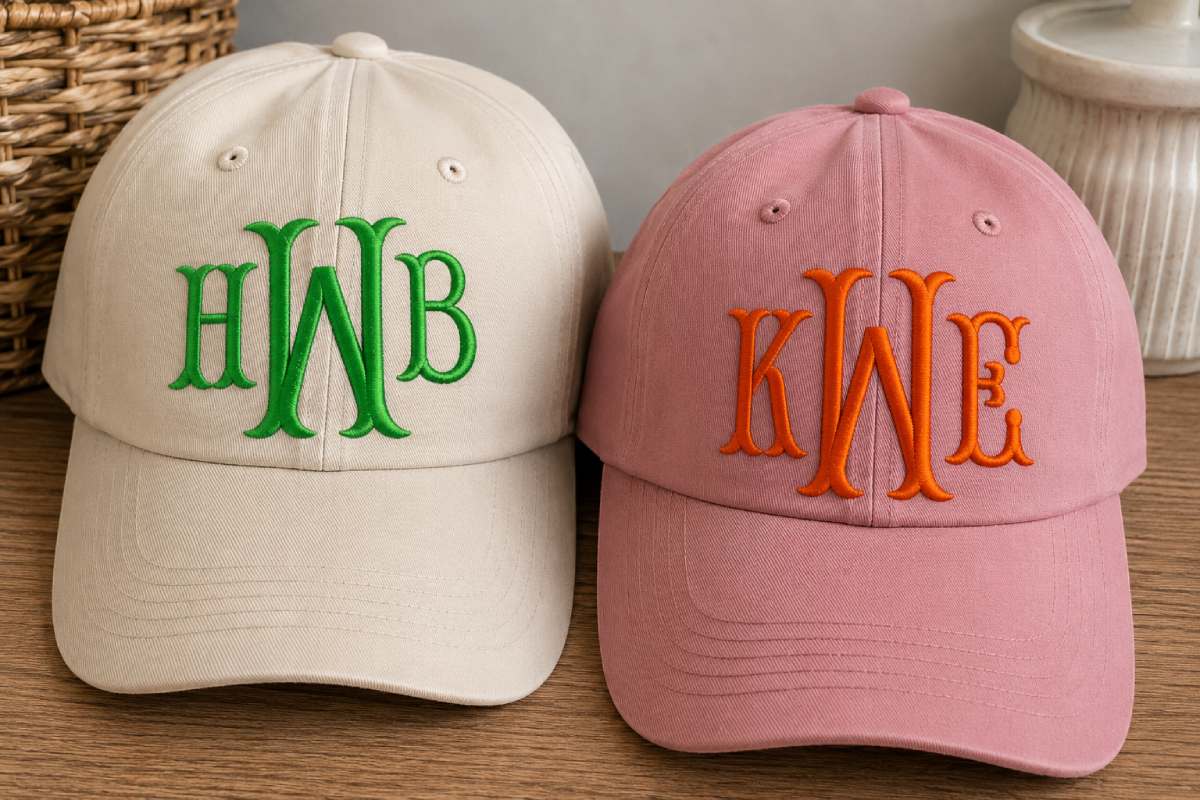
A plain stitched name can look clean, but sometimes clean is not enough. Hats, team gear, bags, and bold monograms need lettering that stands up and catches the eye. That is where 3D puff embroidery fonts earn their place. In this guide, we will walk through Apex font picks that bring raised texture, strong readability, and real project appeal.
What are 3D puff embroidery fonts?
3D puff embroidery fonts are machine embroidery lettering files digitized to create raised, dimensional letters with foam under the stitches. They are commonly used for hats, monograms, team gear, bags, hoodies, and bold logo-style personalization.
The best puff embroidery fonts use thick, readable letter shapes that can hold height without looking messy.
A good 3D puff font is not just a regular alphabet made thicker. It needs structure.
The letters have to close cleanly.
The edges need to survive the raised effect.
Curves cannot collapse into thread clutter.
Small gaps, skinny strokes, and over-decorated details may look charming in a preview, then disappoint once stitched.
That is why 3D puff embroidery fonts look so different from regular embroidery fonts.
They are built for dimension. The raised surface catches light. The thread sits higher. On a cap or sweatshirt, the lettering feels closer to a branded retail piece than a basic name stitch.
Apex 3D puff fonts lean into that practical reality. Some are clean and sporty. Some are made for monograms. Some feel more boutique…
Simple 3D Puff Embroidery Font
Simple 3D Puff Embroidery Font is the “do not overthink it” pick.
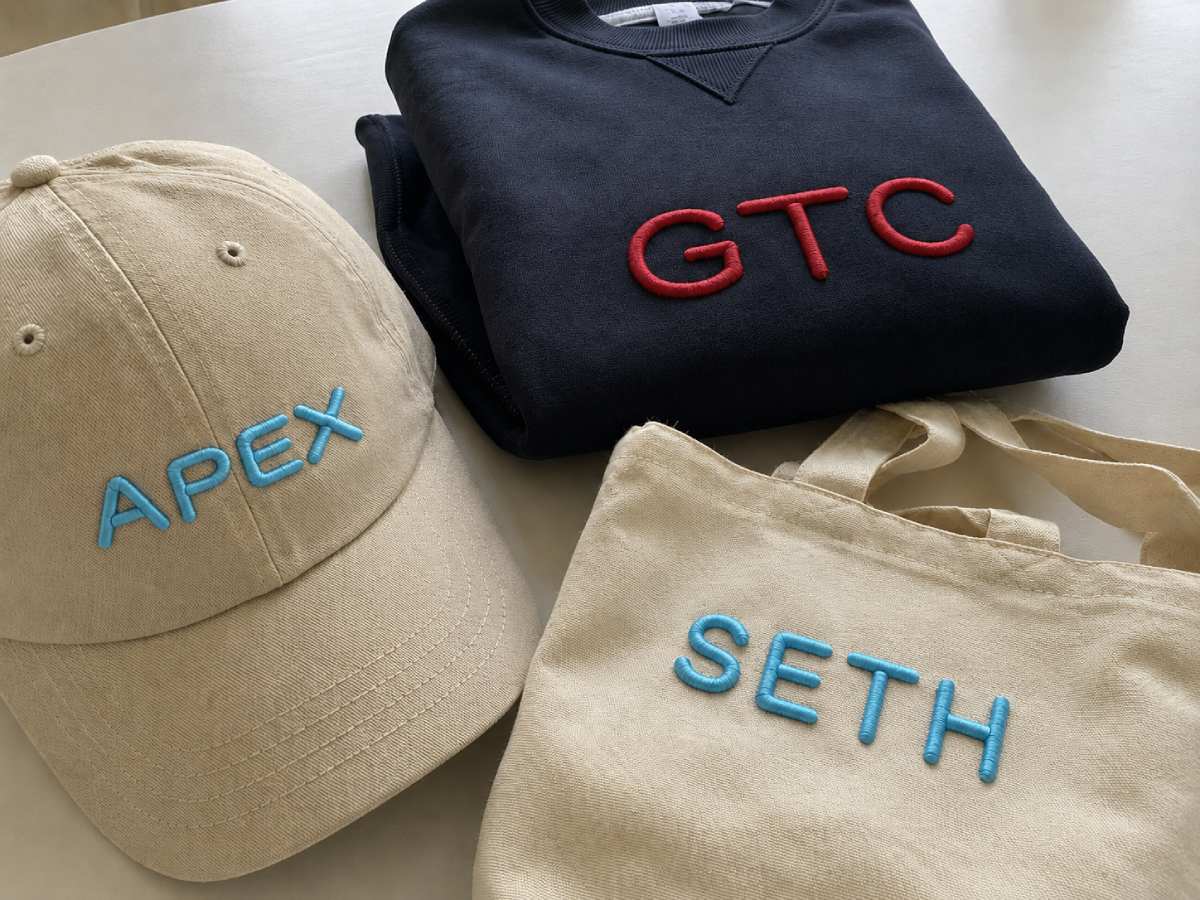
Use it for short names, hat lettering, simple shop names, team words, and casual personalization. The font comes in 1.5", 1.75", and 2" sizes, which makes it useful for projects that need visible puff without going oversized.
Gothic 3D Puff Embroidery Font
Gothic 3D Puff Embroidery Font has more attitude. It is not soft, round, or delicate.
This is the type of 3D puff embroidery font that can work for statement hats, jackets, streetwear-inspired pieces, sports designs, or projects where the lettering needs to look strong rather than sweet.
Varsity 3D Fill and Applique Font Pack
Varsity 3D Fill and Applique Font is the one to reach for when the project needs that school, team, or athletic-shop look.
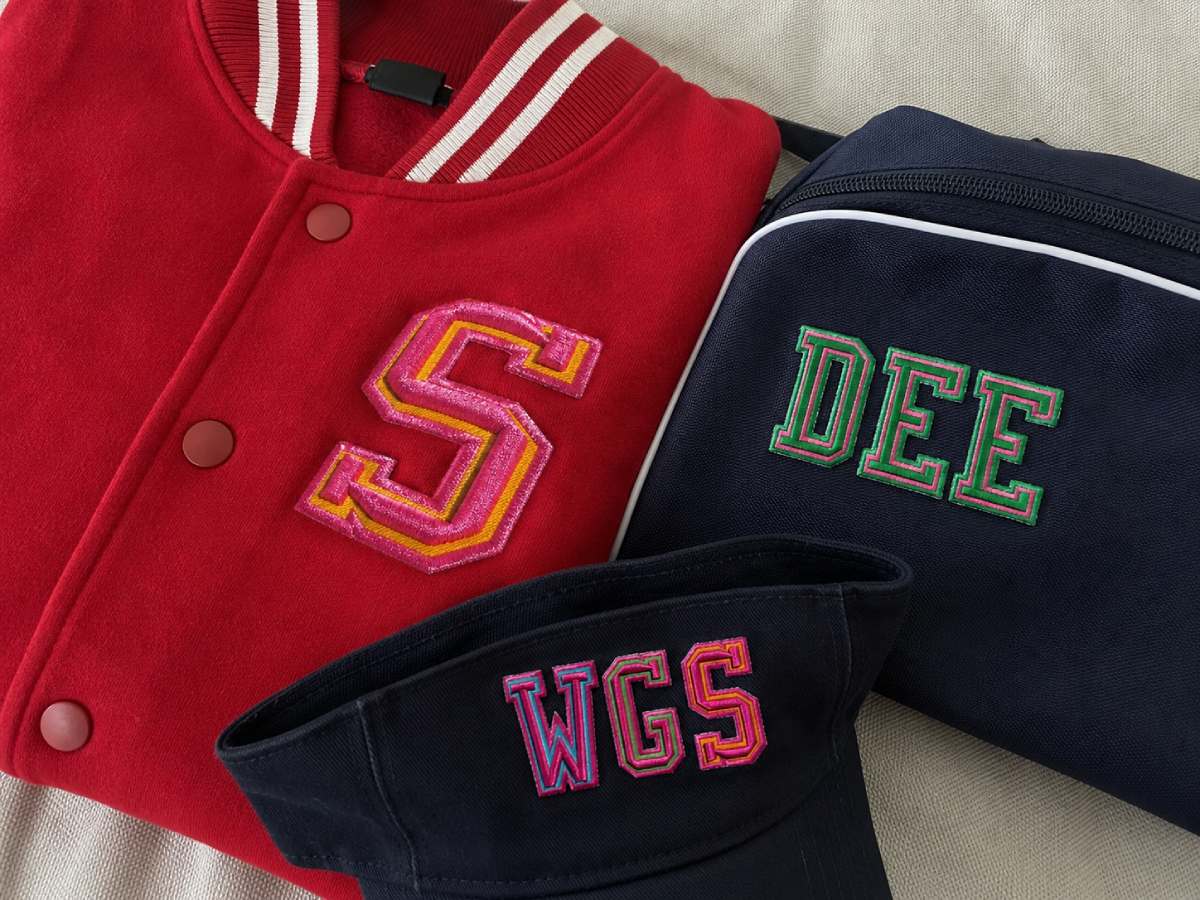
What makes this pack useful is the mix of 3D puff fill and applique structure. It can stitch in two or three colors, so the letters can feel more built-out than a plain single-color puff font.
Puff 3-D Vine Interlocking Embroidery Font
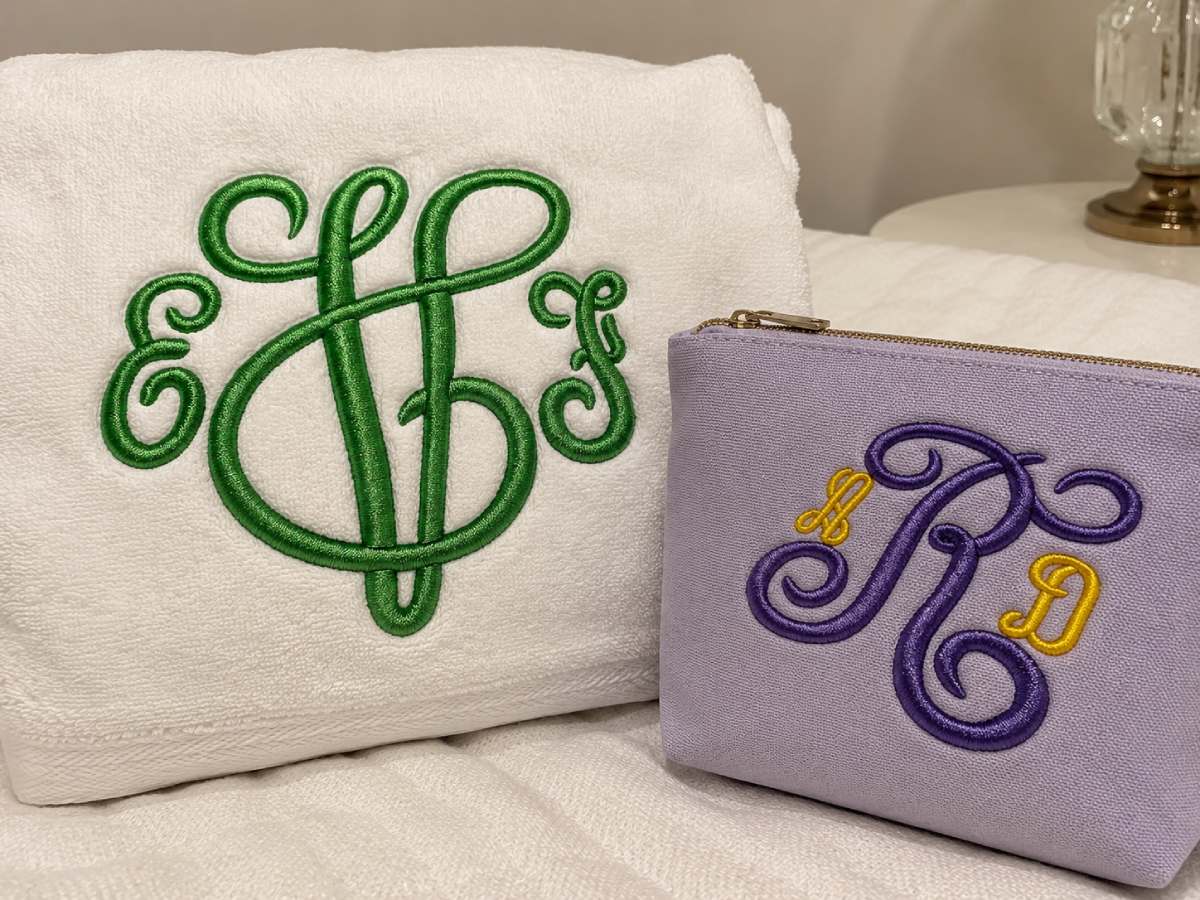
The interlocking vine style gives the letters a monogram feel without making them look too stiff or corporate.
Puff 3-D Vine Interlocking Embroidery Font works best when the embroidery project needs movement: boutique bags, towels, robes, gifts, and personalized items where initials should feel more designed than typed.
Because it comes in multiple sizes, it also gives more flexibility for different placements, from smaller monograms to larger statement initials.
Tiffany Puffy 3-D Machine Embroidery Fonts
Tiffany Puffy 3-D Font has a soft, polished look that works well when you want puff embroidery without making the design feel too sporty.
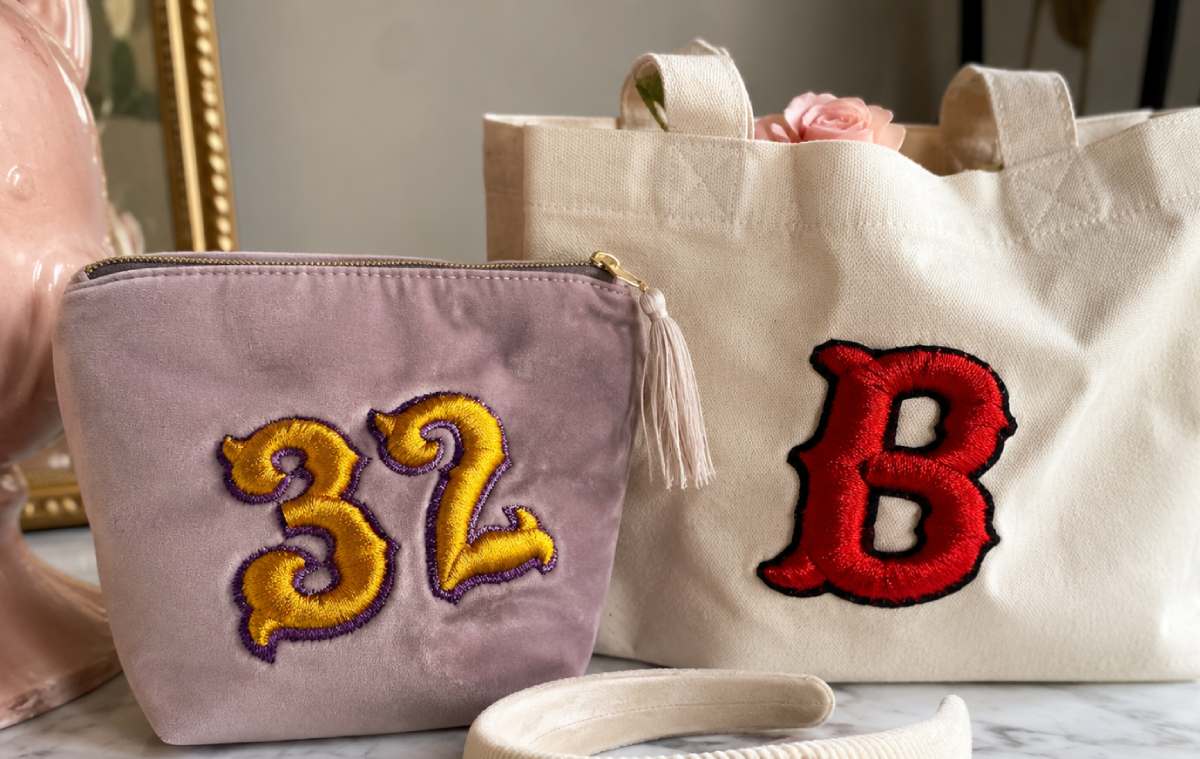
This font is especially useful for projects that need charm but still need readability. The raised effect gives it dimension, while the letter style keeps it friendly and gift-ready.
Empire 3D Puff Monogram Embroidery Font
Empire 3D Puff Monogram Font is built for monograms that need presence.
The left, right, and center letter setup makes it useful for classic monogram layouts.
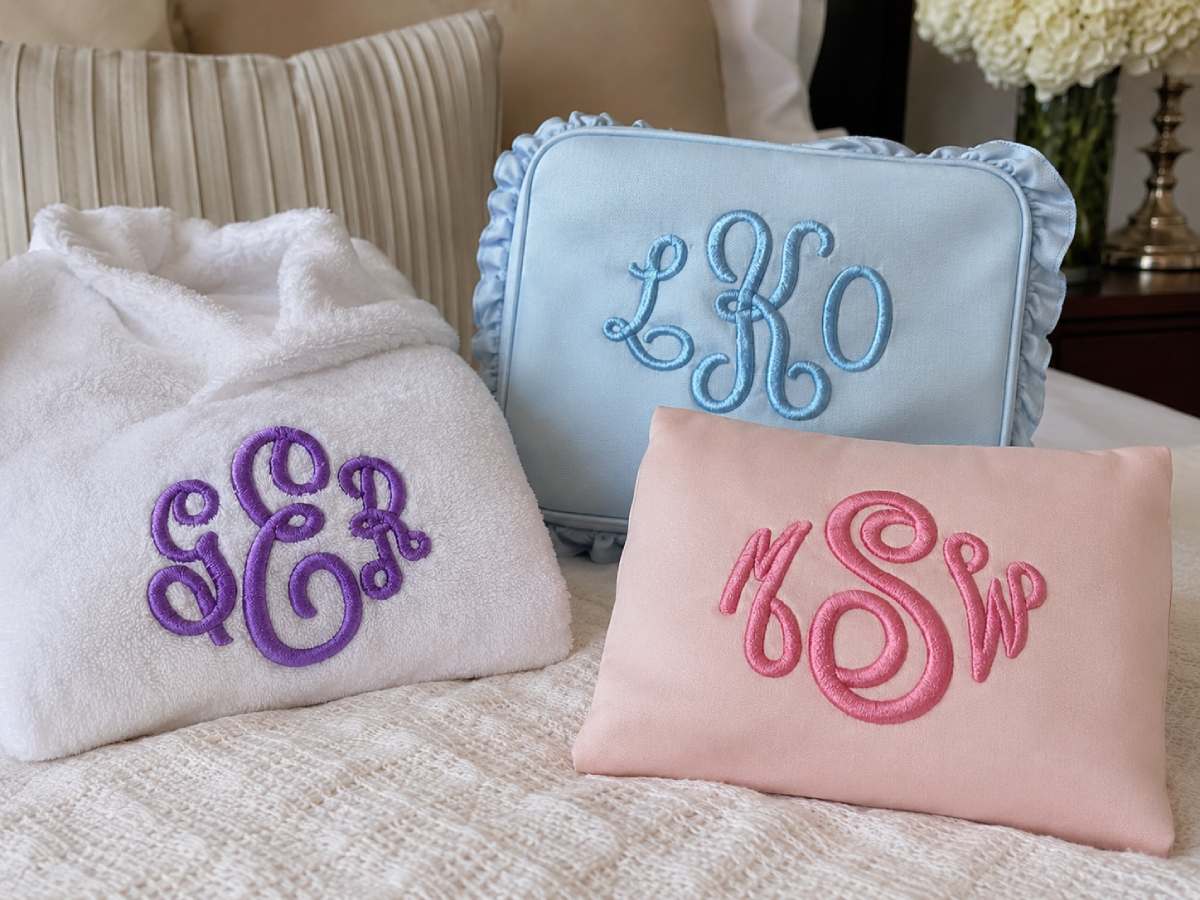
Puff 3D Diamond Embroidery Font
Puff 3D Diamond Font is a good choice when you want the lettering to feel more decorative and framed.
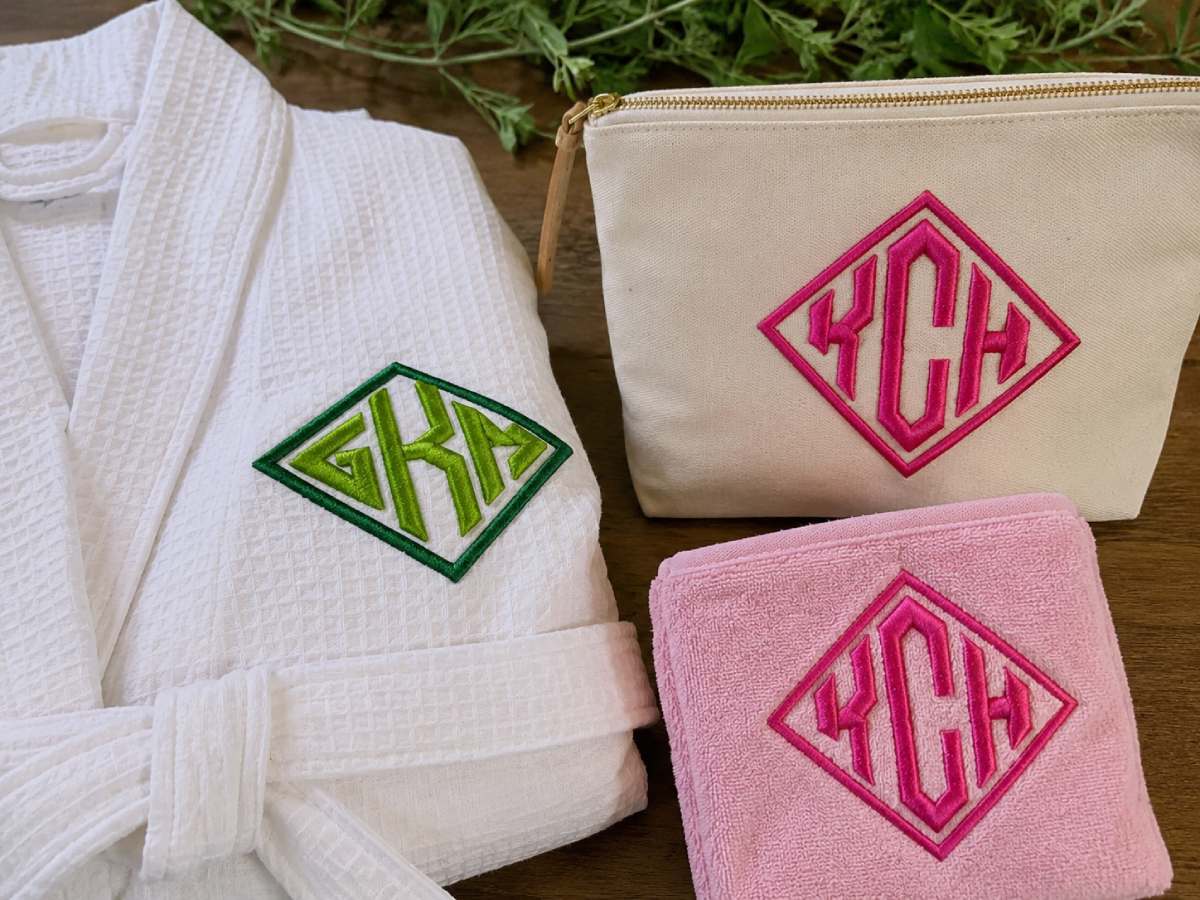
It is a smart pick when a plain raised alphabet feels too simple, but a very ornate monogram feels too formal.
Dennis 3D Puff Embroidery Font Alphabet
Dennis 3D Puff Font has a playful brush-style personality.
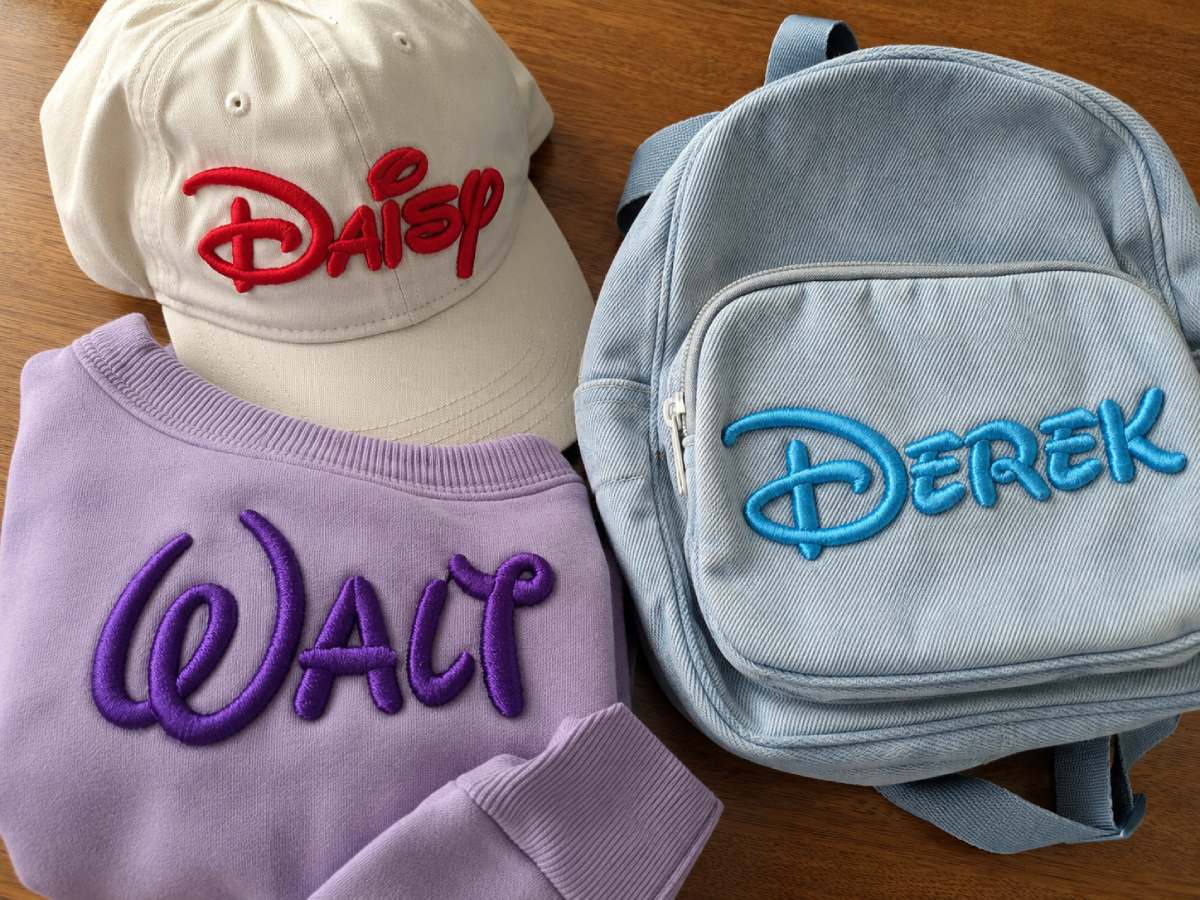
It can work for kids’ items, playful caps, bags, themed apparel, and designs where a standard block alphabet would feel too serious.
3D Puff Panama Script Embroidery Fonts
Panama Script Fonts is for people who want movement in their 3D puff embroidery fonts. It gives a script look while still being made for raised embroidery.
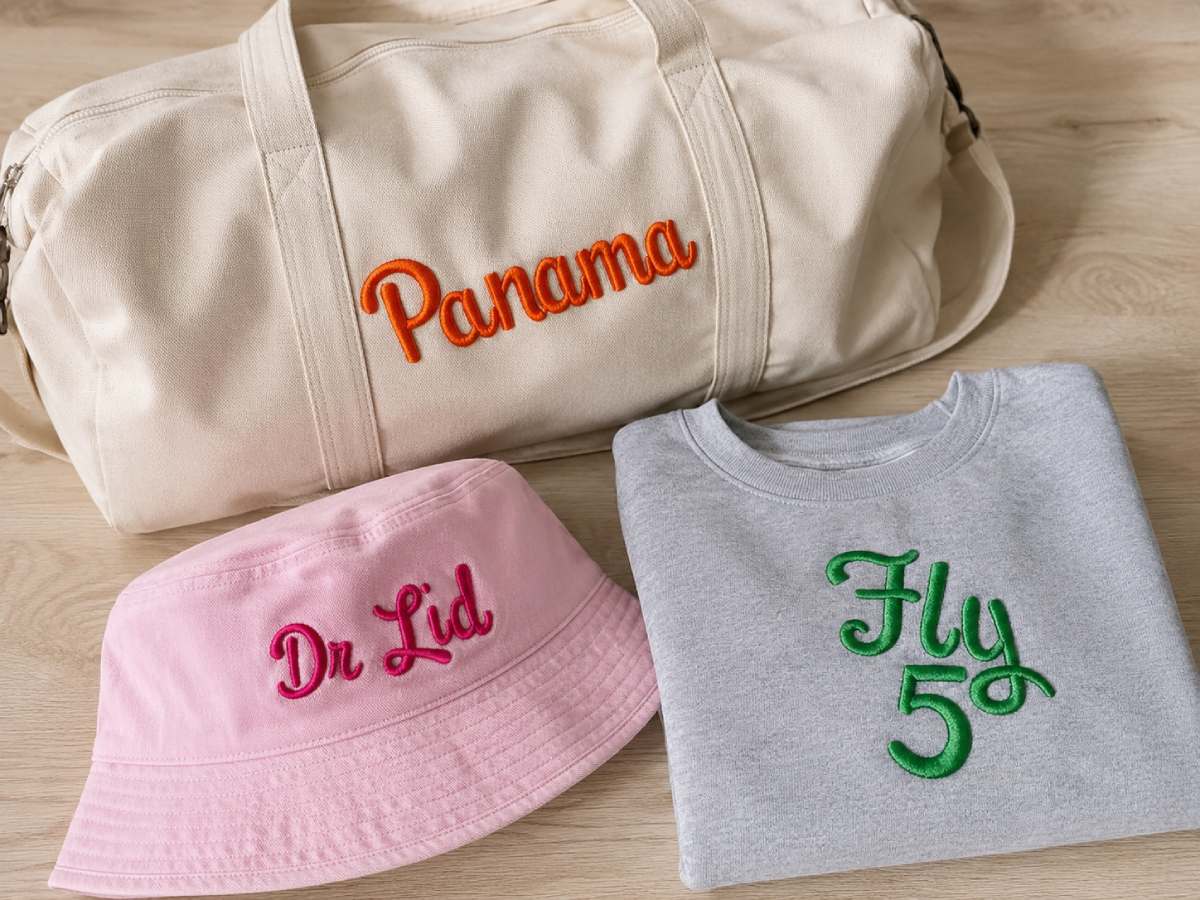
Do not overcrowd it. Script puff lettering needs breathing room, otherwise the raised effect can lose its clean shape.
3-D Puffy Curlz Embroidery Font
3-D Puffy Curlz Embroidery Font is playful, round, and full of personality. It is better for cheerful projects where the lettering should feel fun from the first glance.